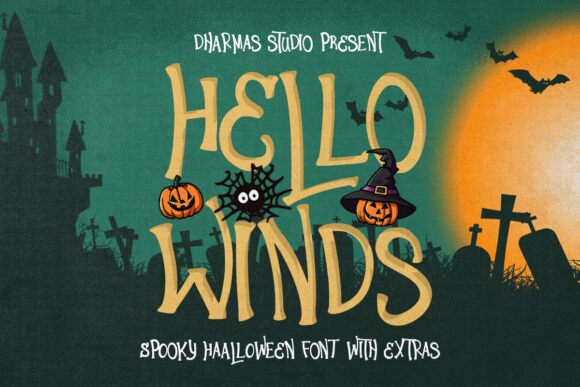
Hello Winds font is a lively holiday typeface from Dharmas Studio with Halloween-style letters. Its quirky artistic letters instantly fill any design project with almost a fun and cheerful feel that is appropriate for children and adults alike. Free, whimsical, unconventional, and extremely animated, this font does not sit still or takes itself seriously even when dealing with serious issues.
Use it to decorate Halloween events invitations, posters, greeting cards for bride showers or just regular December holidays. Festival flyers are also easy to decorate when you use Hello Winds in them whereas logos gain an effortlessly playful look that makes brands look less rigid as well as approachable.